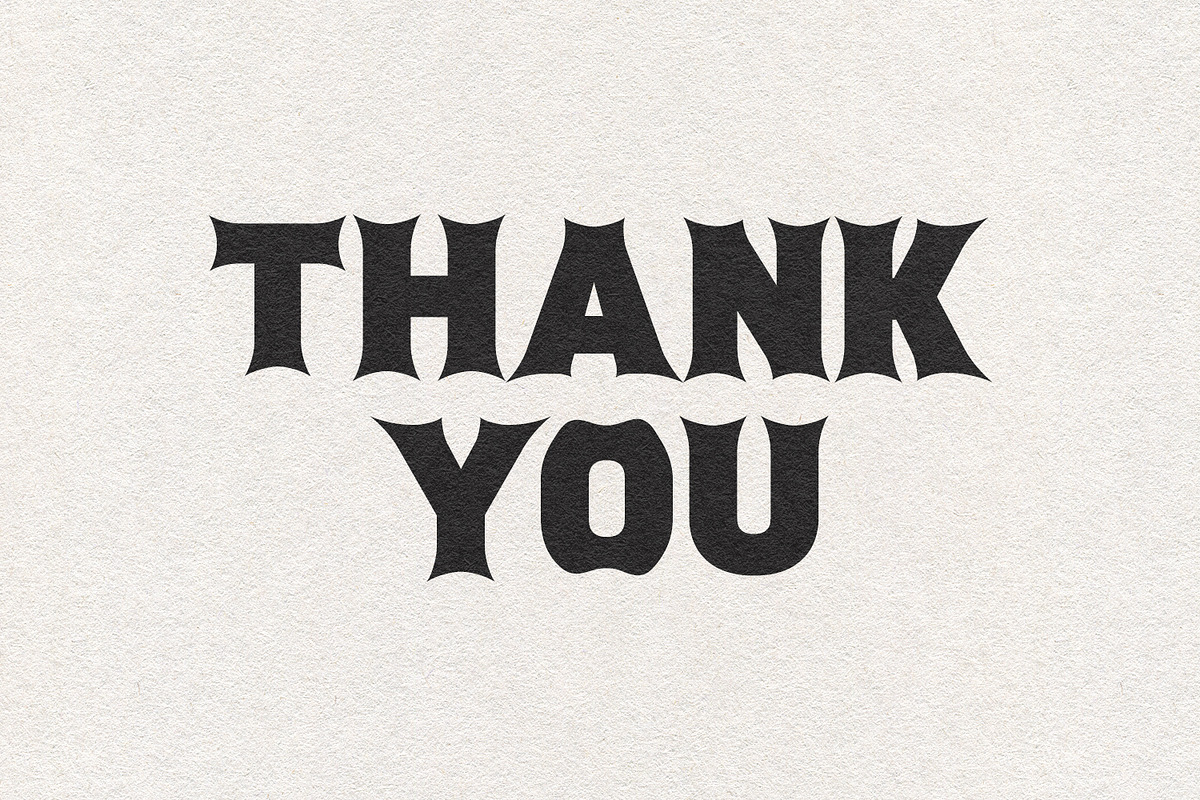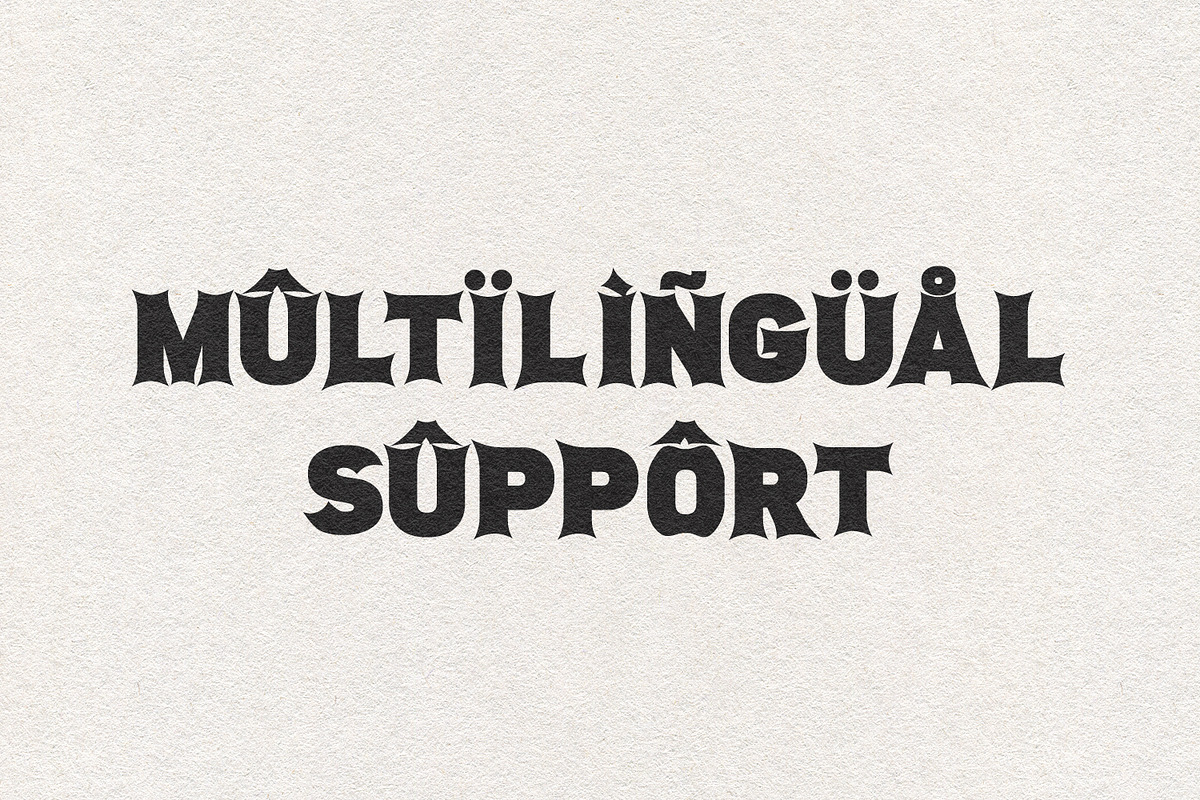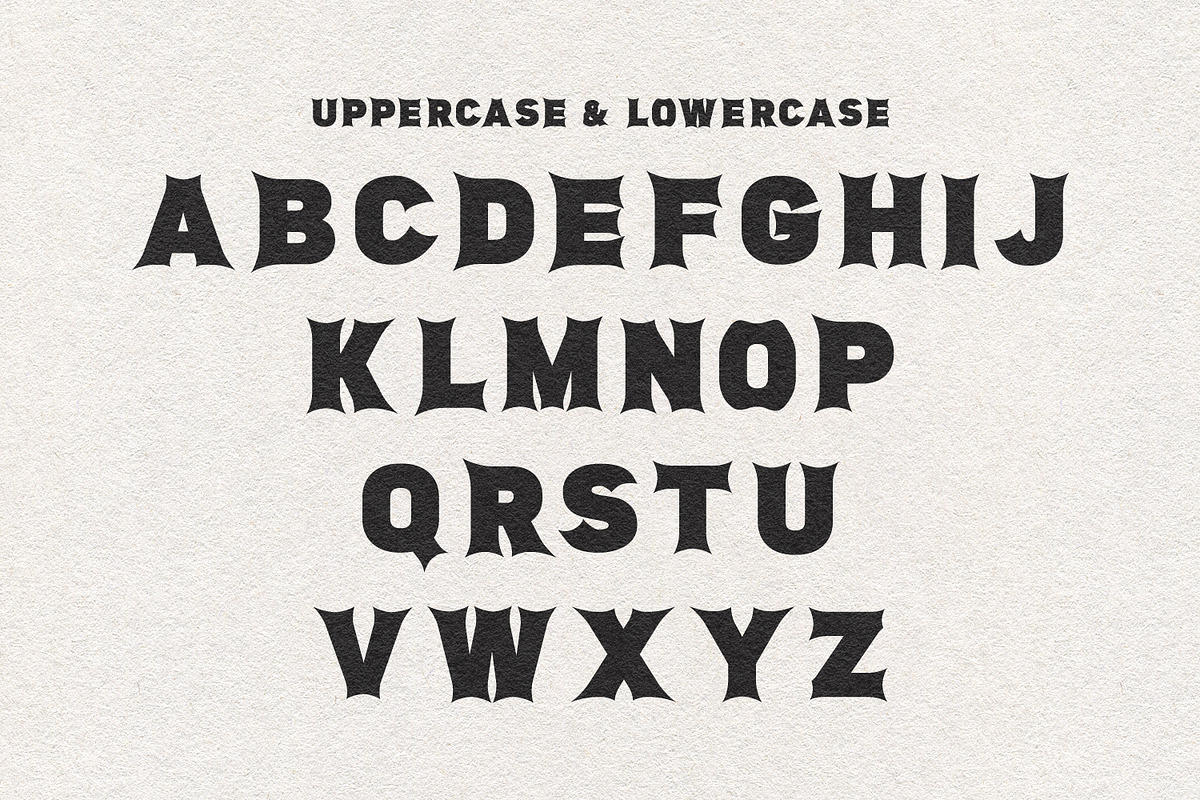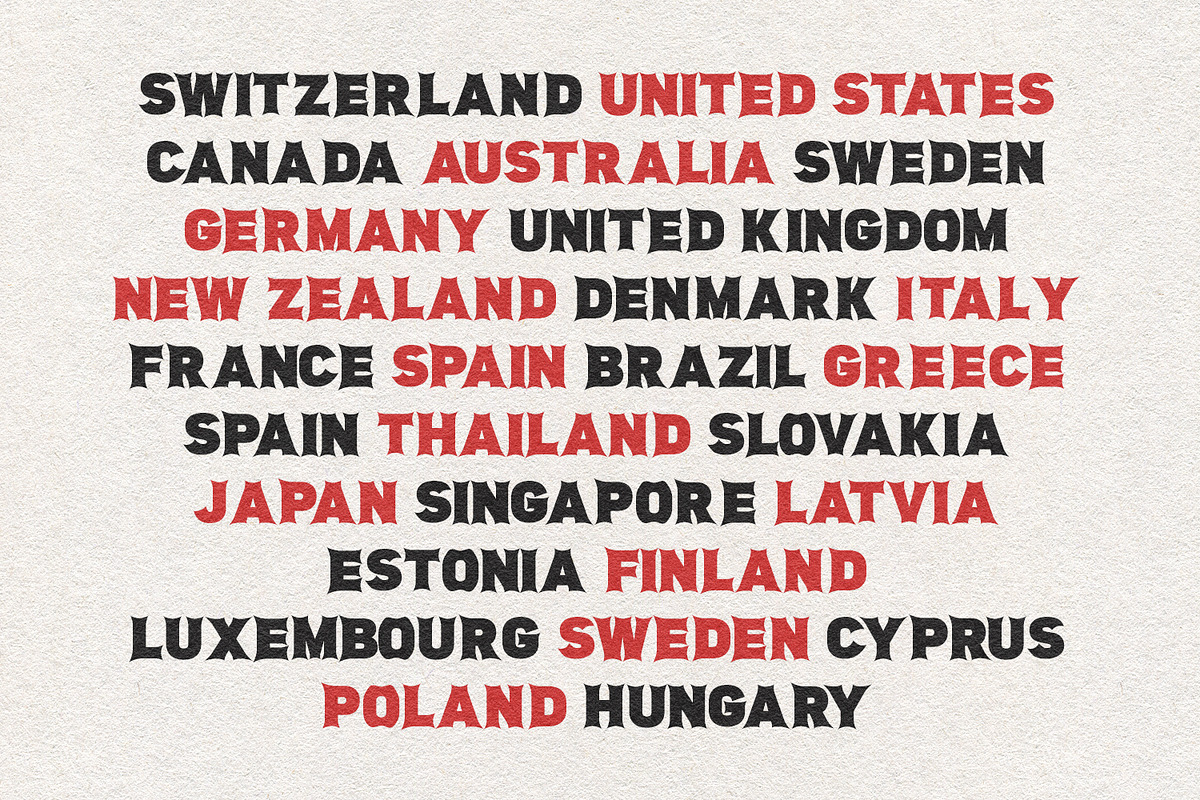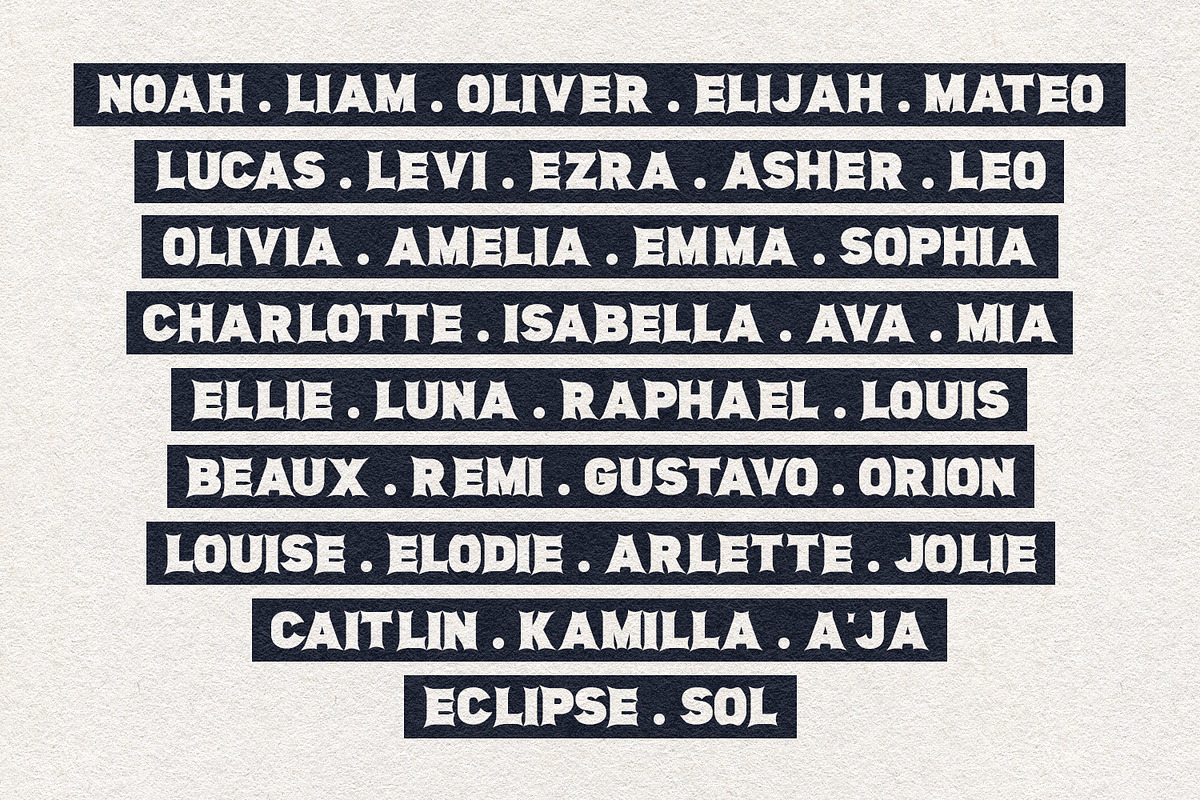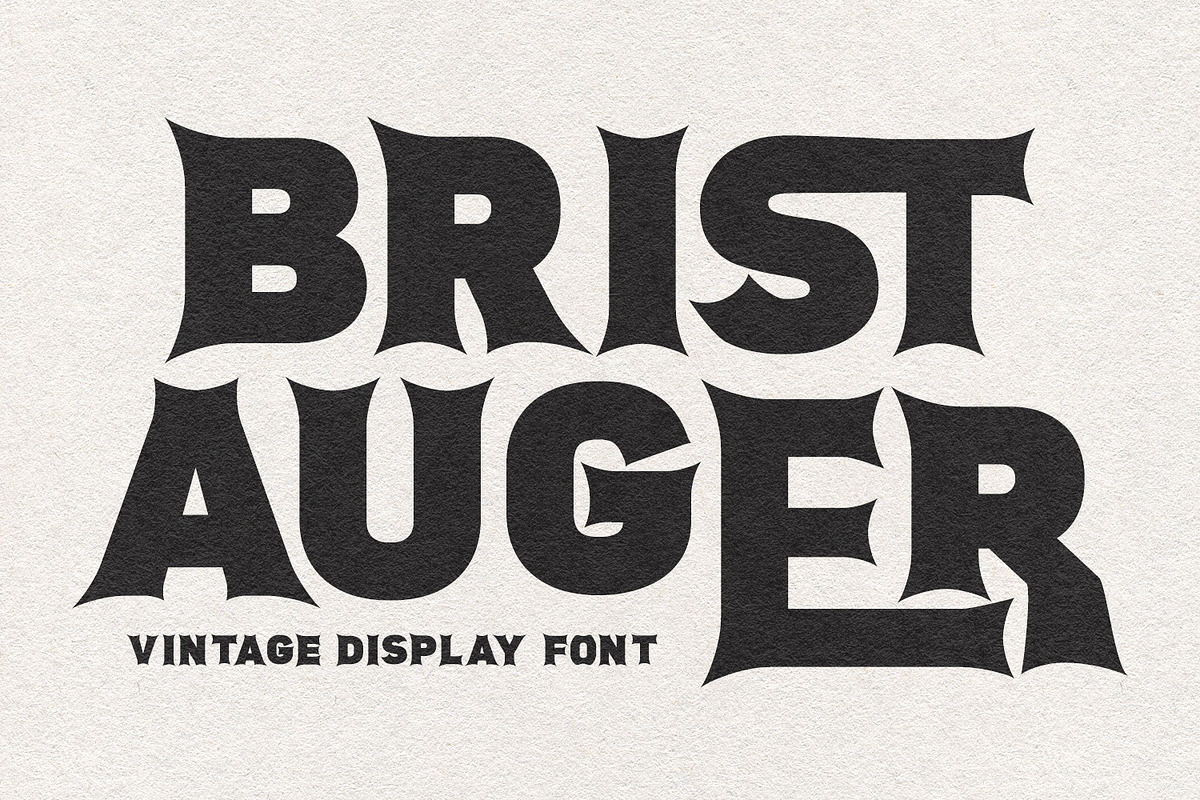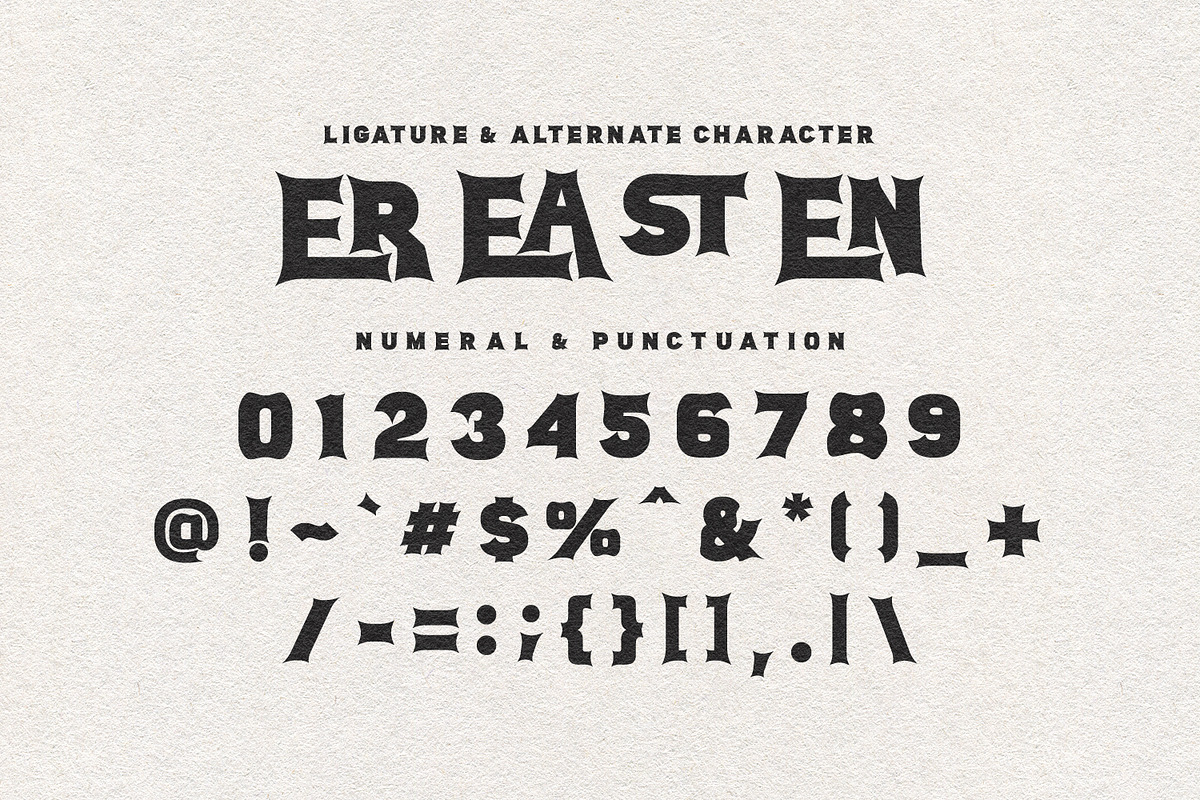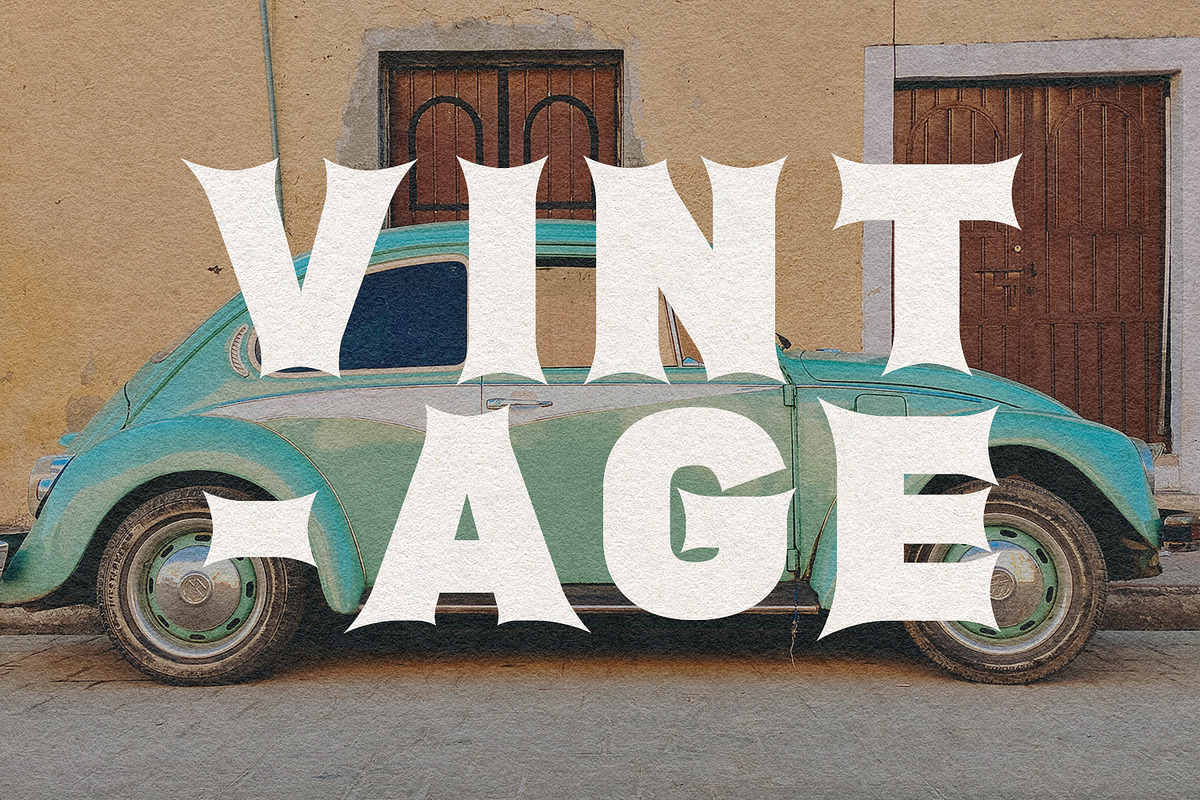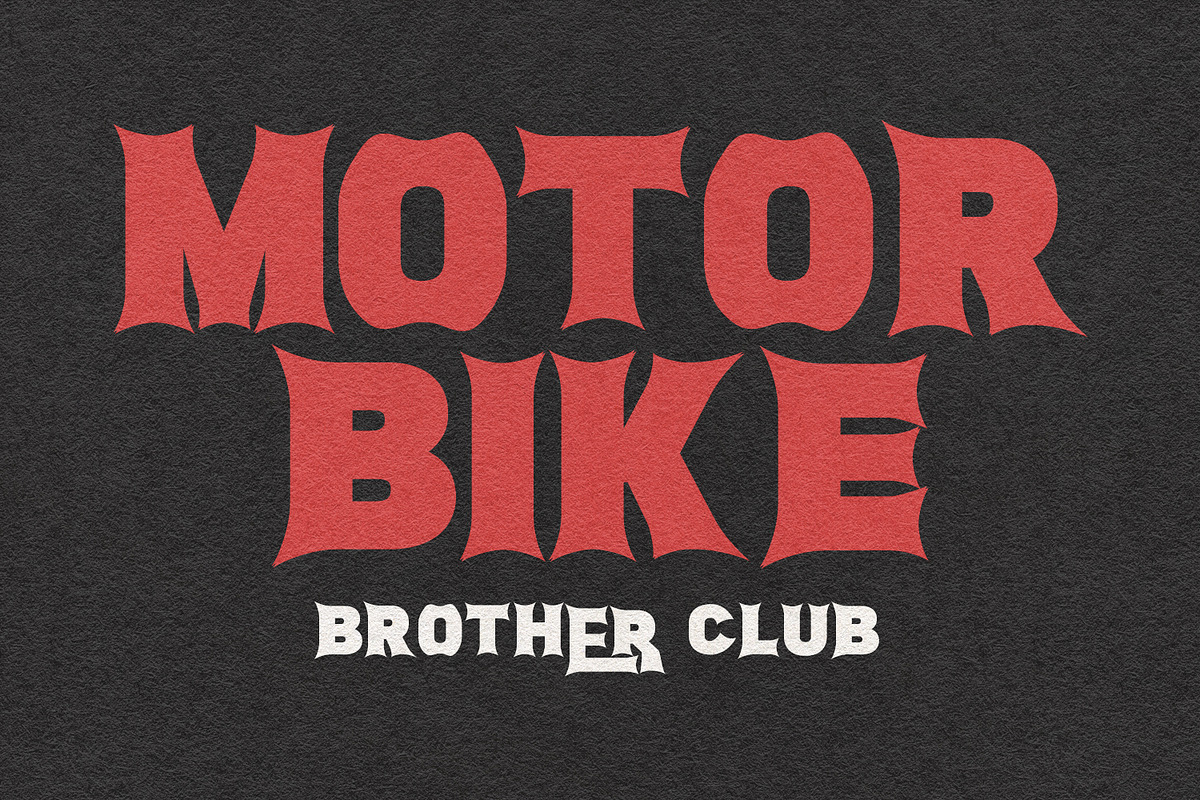
Brist Auger Vintage Display Font
Brist Auger is a vintage display font. With bold stroke, fun character with a bit of ligatures. To give you an extra creative work. Brist Auger font support multilingual more than 100+ language. This font is good for logo design, Social media, Movie Titles, Books Titles, a short text even a long text letter and good for your secondary text font with sans or serif. Make a stunning work with Brist Auger font.